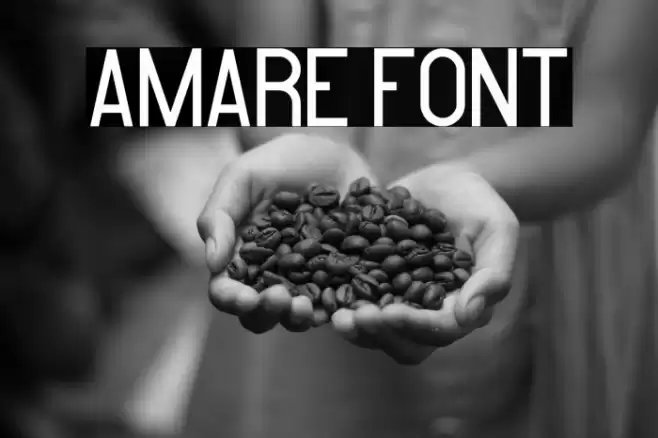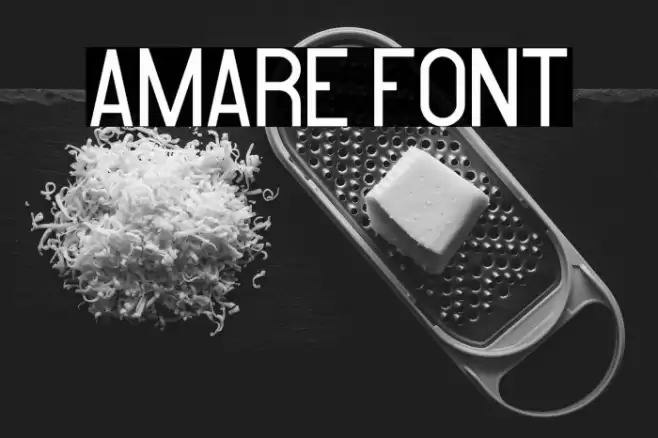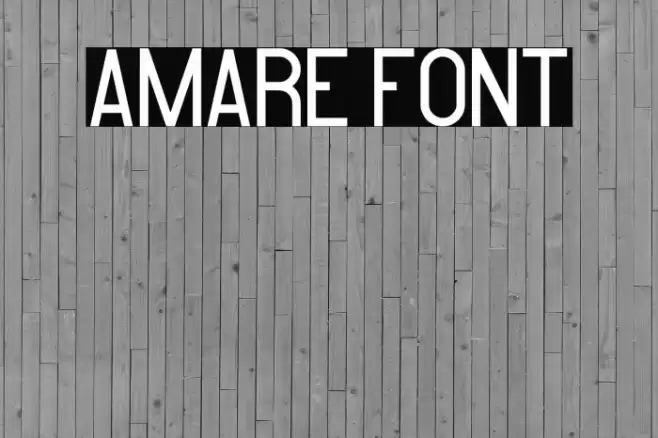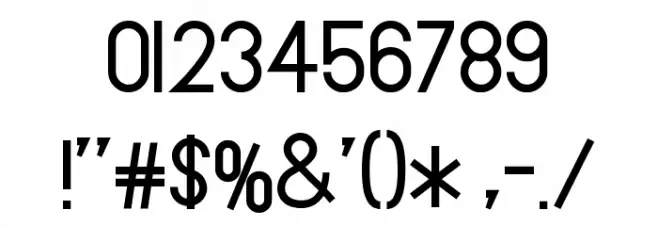
Amare Font
Amare Description
This font features a clean and modern sans-serif style with uniform stroke widths, providing a sleek and contemporary appearance. The characters are well-proportioned and exhibit a geometric influence, making them highly legible and versatile. The uppercase and lowercase letters maintain a consistent design, while the numerals and special characters complement the overall aesthetic. The font's simplicity and clarity make it suitable for a wide range of applications, from digital interfaces to print media.
A modern, geometric sans-serif font with clean lines and uniform strokes from Regular fonts.
- Proposed Projects: Ideal for branding, web design, advertising, and editorial layouts.